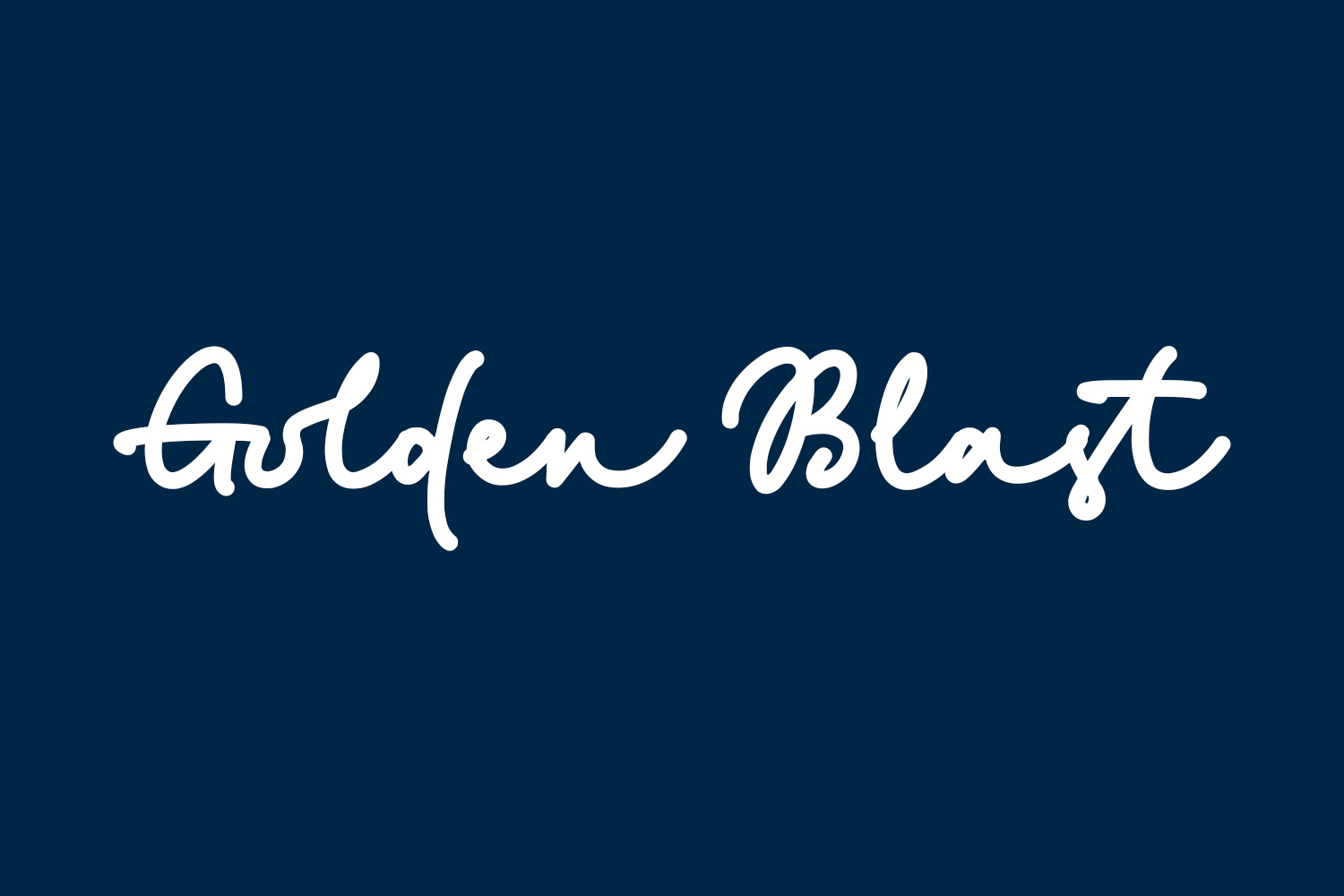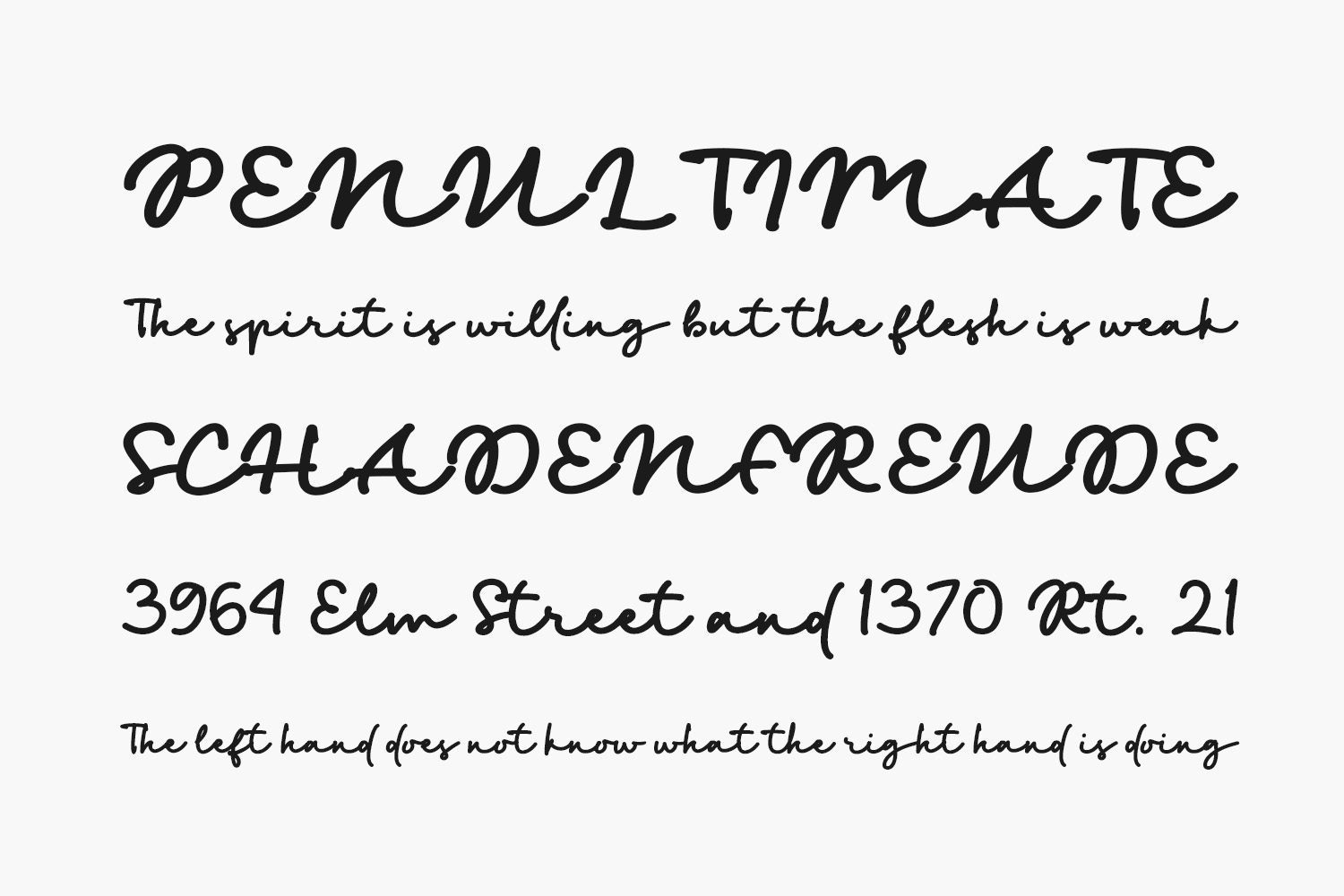
Golden Blast Free Font is a dazzling script font. This font is neatly crafted and highly detailed. Whatever the topic, this font will be a wonderful asset to your font library, as it has the potential to enhance any creation. Golden Blast Free Font was designed by Zeenesia Studio and is free for personal use only. Please purchase the full version for commercial use.